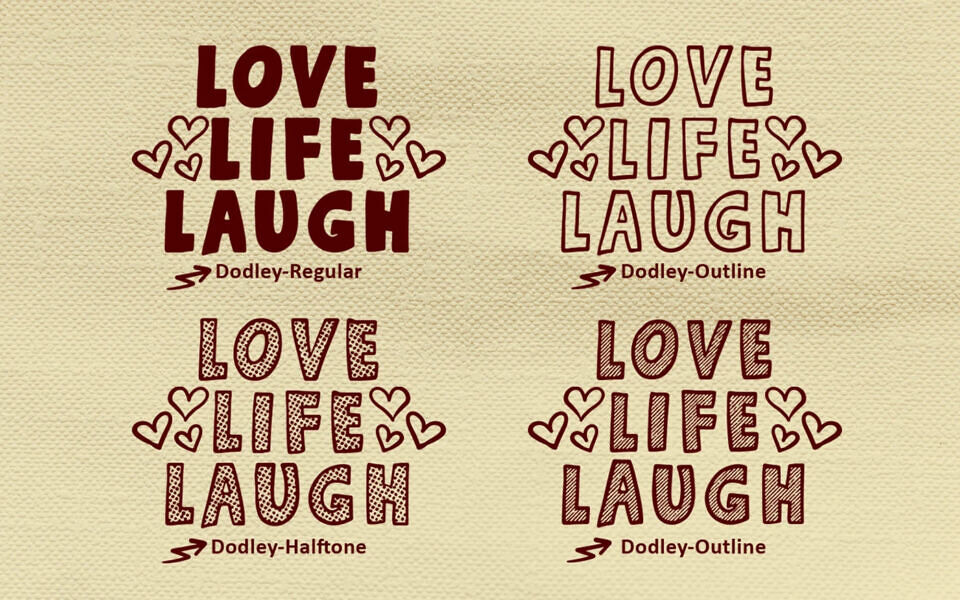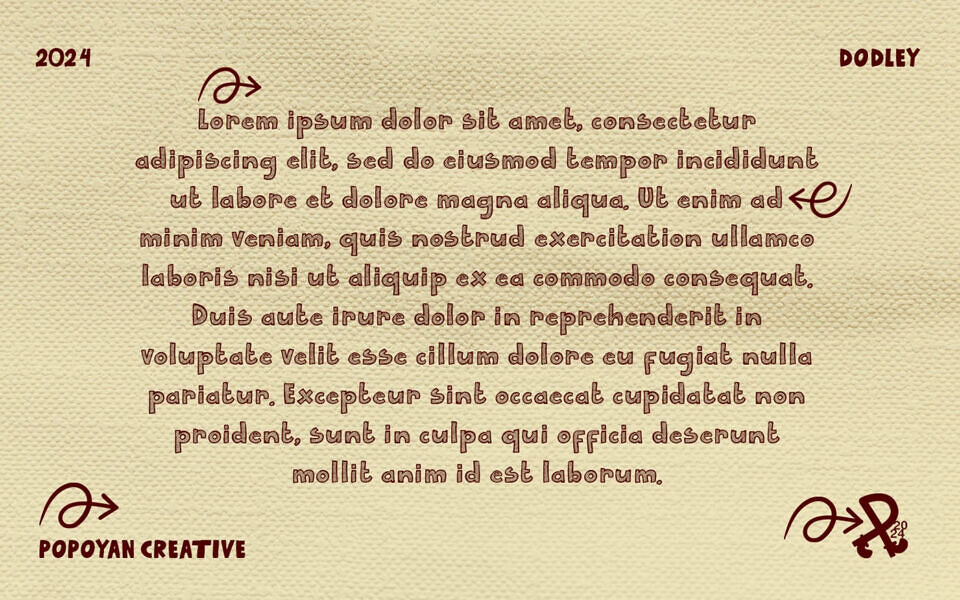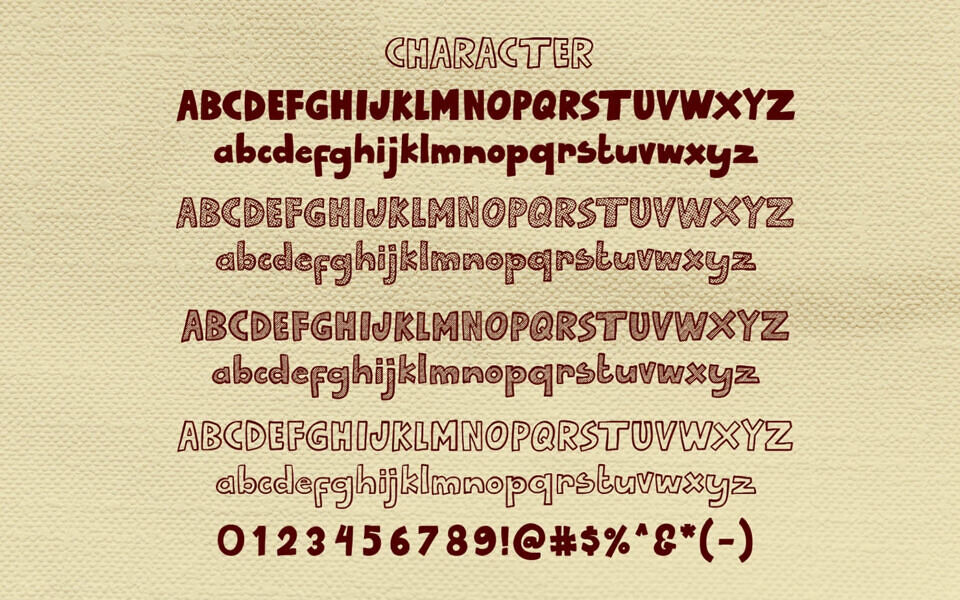
Dodley is a playful and expressive handwriting font family designed to bring charm and personality to your designs. Its unique, hand-drawn look makes it perfect for projects that need a touch of warmth and creativity. Whether you’re designing for children, creating illustrations, or adding some fun flair to your branding, Dodley adds an artistic touch to any project.
Each font is versatile and easy to use, with clean, legible letterforms that make them ideal for both print and digital media. Whether you’re designing logos, website headers, or social media posts, the Dodley Handwriting Doodle Font Family provides the perfect handwritten touch.